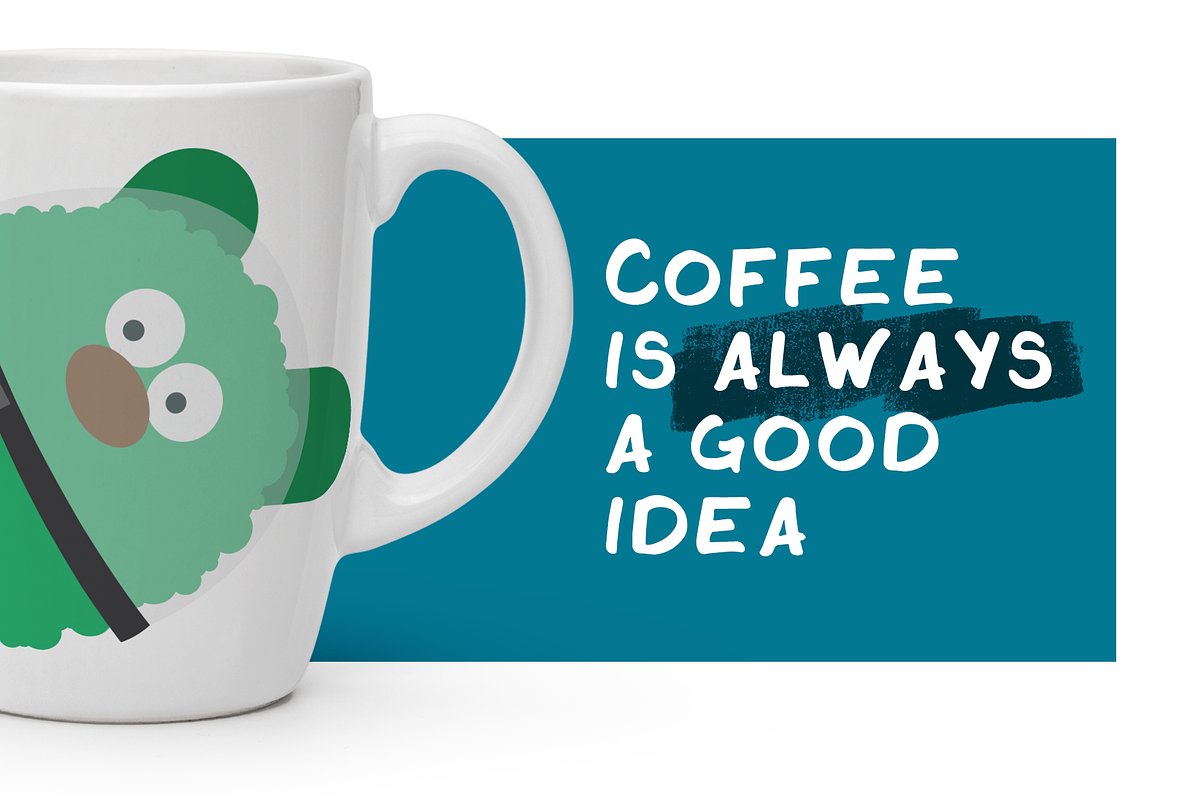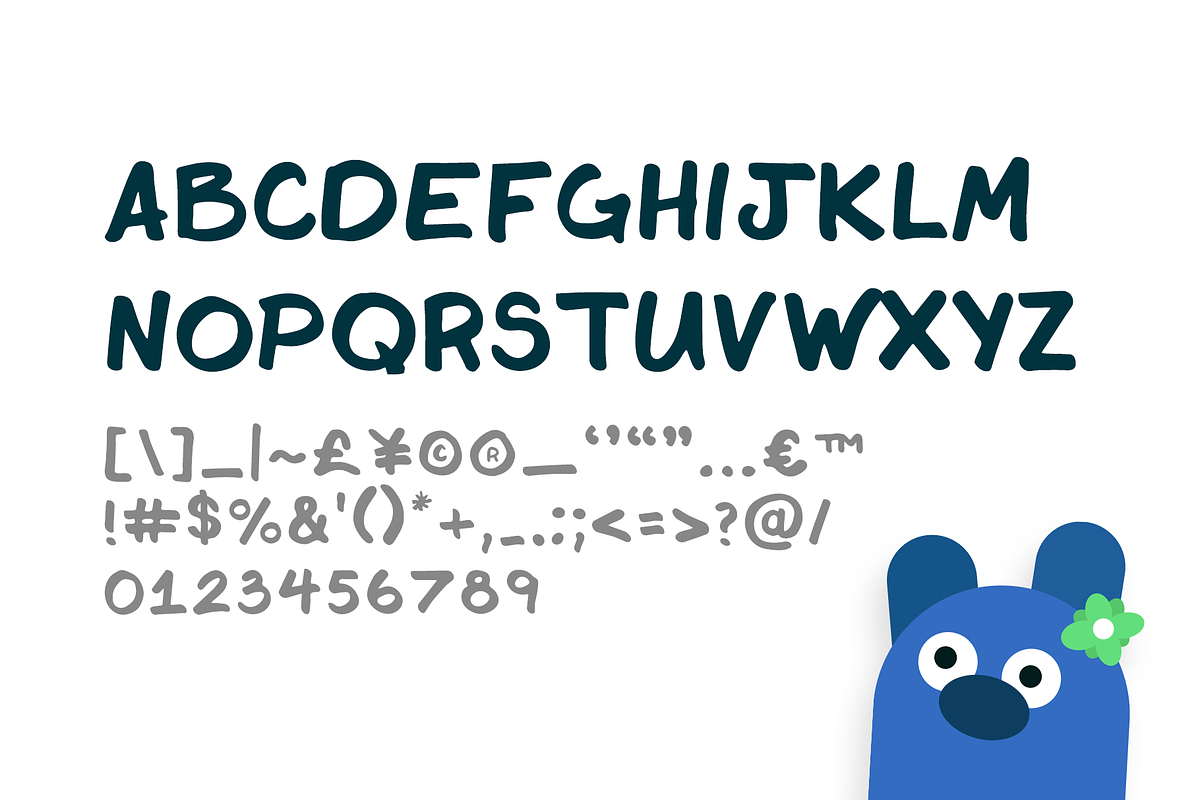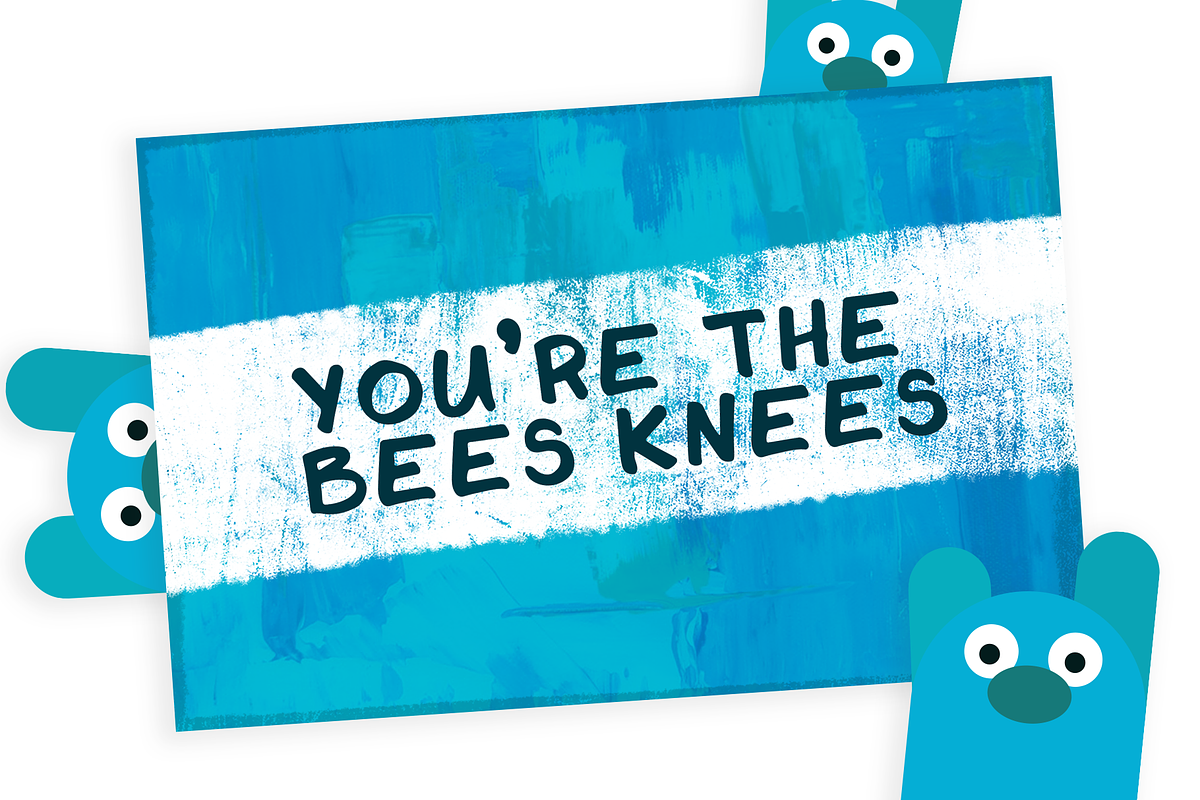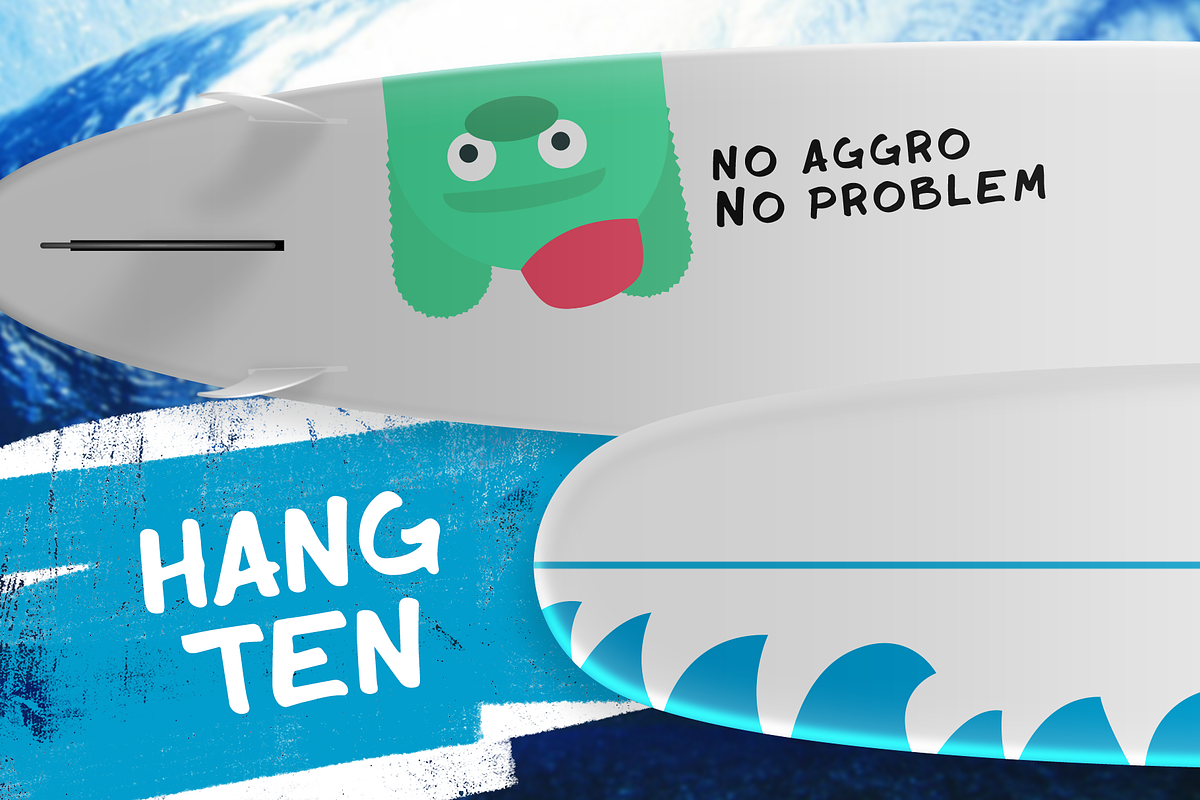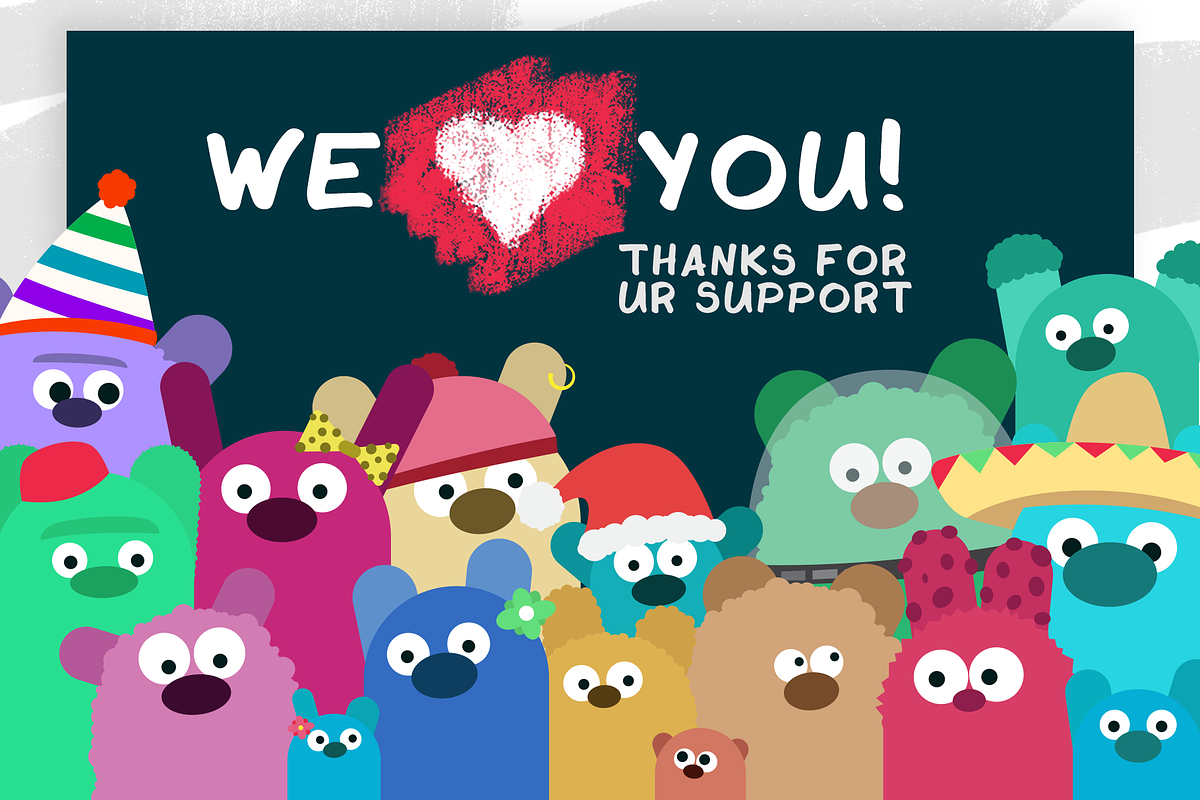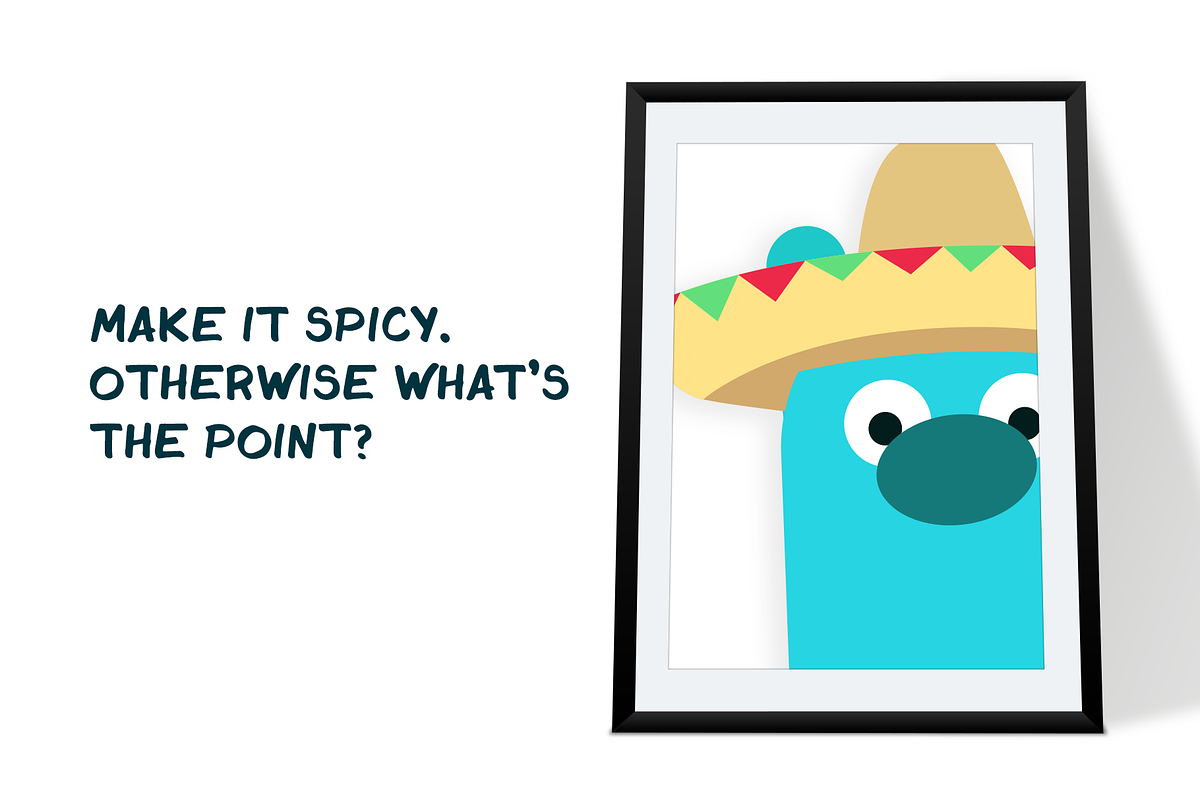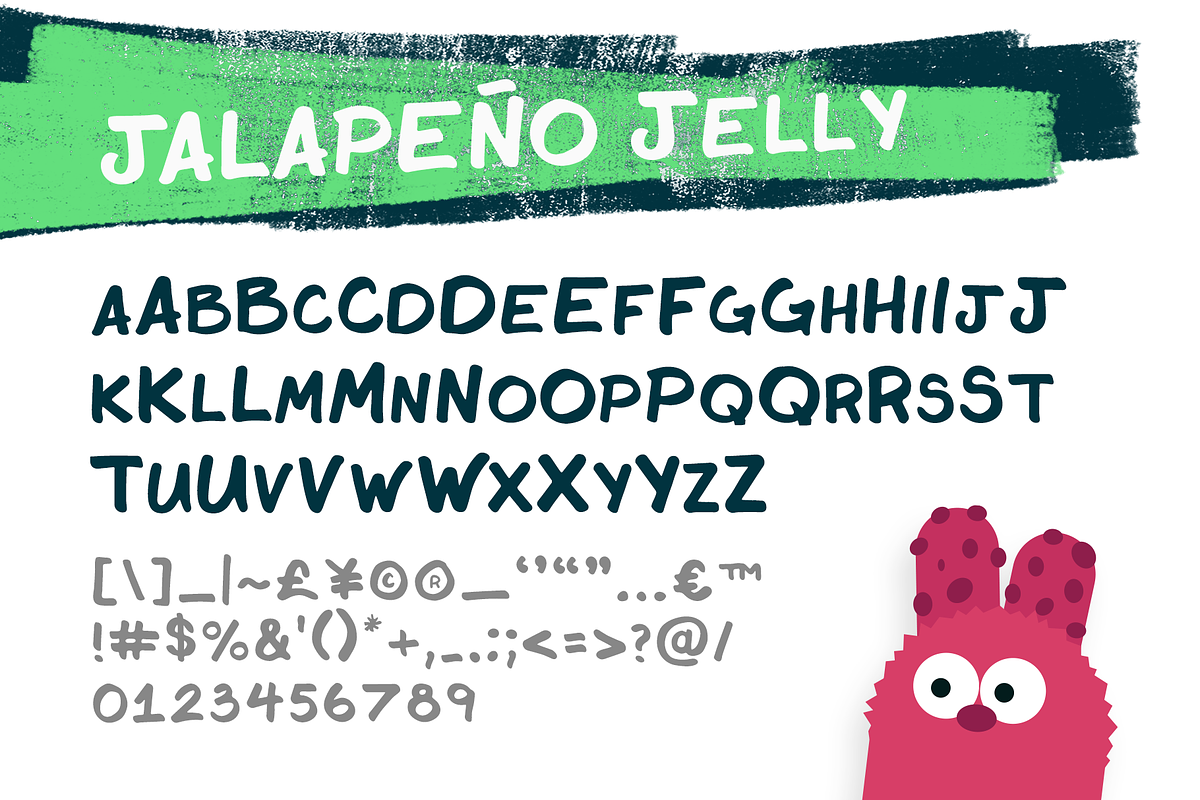
Jalapeño Jelly Display Font
Jalapeño Jelly is fun and festive handmade font. This marker font is great for birthday cards, corporate barbeques, stationary, logos, scrapbooking, fiesta invites, posters, websites, taco stands, school projects, philosophy seminars, mugs, t-shirts, shoes, chalkboards, square dancing, cocktail napkins, billboards, sides of airplanes, placemats, menus, hotdog packaging, regulatory notices, newspapers, farm equipment, legal contracts, and so much more!!!!
Keep it spicy! 🌶️🌶️🌶️